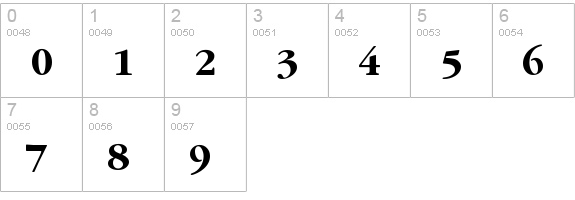
PFGaramondText Bold Font Details
PFGaramondText Bold is a strong, high-contrast variant in the PFGaramondText typeface family \xE2\x80\x94 well suited to headlines, attention-grabbing titles, and strong calls-to-action.
PFGaramondText Bold is a timeless and elegant font that exudes sophistication and class. Its bold weight commands attention while maintaining a sense of grace and refinement. The sturdy serifs and balanced proportions make it perfect for conveying a sense of authority and professionalism in any design project. What sets PFGaramondText Bold apart is that it is available for free download at FontsMarket.com. This means that you can easily access this exquisite font without any cost, making it a valuable addition to your font collection. Whether you're working on a branding project, editorial design, or any other creative endeavor, PFGaramondText Bold is sure to elevate your work with its classic charm and modern appeal. Download it today and add a touch of sophistication to your designs.